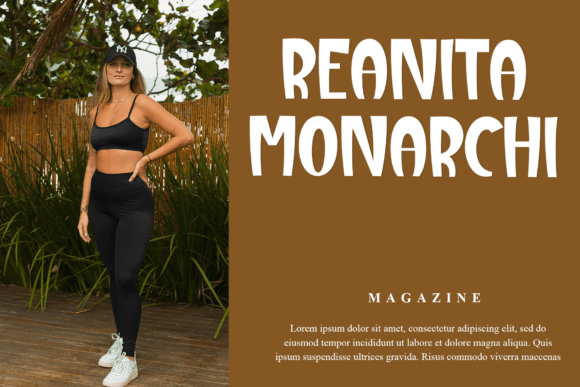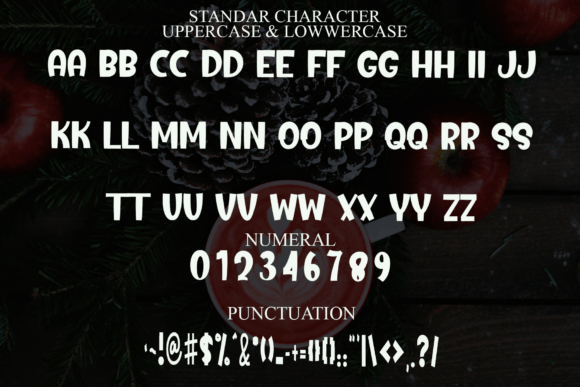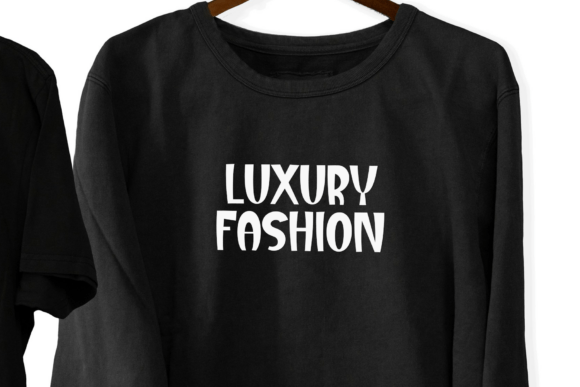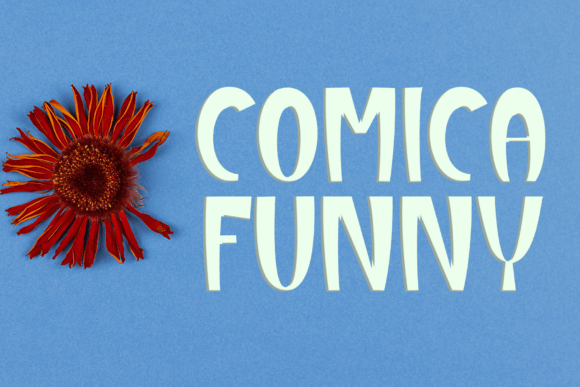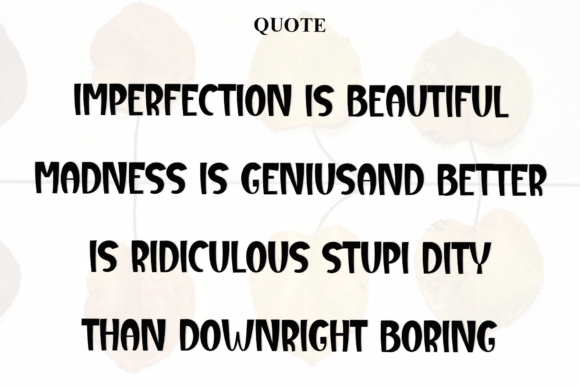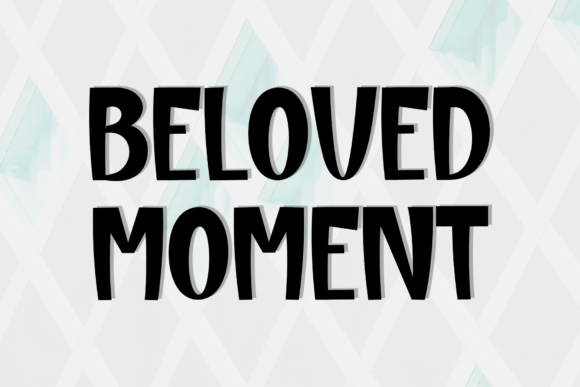
The Quest for the Perfect Font: Discovering February Notebook
I’ll never forget the time I was working on a project for a client who wanted a custom design that screamed “spring” but with a twist of uniqueness. I had spent hours scouring through font libraries, trying to find that one special font that would bring their vision to life. And then, I stumbled upon February Notebook. It was love at first sight! 💕 This beautiful, eye-catching font has a soft, unique touch that instantly captured my heart. In this article, I’m excited to share with you why February Notebook has become a staple in my design toolkit and how you can make the most of it in your creative projects.
A First Look at February Notebook
February Notebook is more than just a font; it’s an experience. Its distinctive strokes give it a special character, making it both meaningful and versatile for future use. Whether you’re working on design projects, crafts, or other creative works, this font is sure to enhance your designs and appeal to a wide range of audiences. With various characters at your disposal, the possibilities are endless!
So, what makes February Notebook stand out, and are there any quirks to be aware of? Let’s dive in! 🤔
- ✨ Unique and eye-catching design
- ✅ Soft and elegant feel
- 💡 Highly versatile for various creative projects
- ⚠️ Some characters might require manual adjustments for optimal spacing
- 🤔 Limited availability of certain special characters
The Story Behind February Notebook
February Notebook was designed with the intention of creating a font that captures the softness and uniqueness of handwritten notes. Inspired by the beauty of natural writing, the designer aimed to create a font that would be both versatile and meaningful. The result is a font that feels both personal and creative, perfect for a wide range of design projects.
| What makes February Notebook unique? | February Notebook stands out due to its distinctive strokes and soft, unique touch, making it perfect for designs that require a personal and creative feel. |
| Are there any OpenType features available in February Notebook? | Yes, February Notebook offers various OpenType features, glyphs, and stylistic alternates, allowing you to add more personality and creativity to your designs. |
In conclusion, February Notebook is a beautiful and versatile font that’s sure to elevate your designs. With its unique touch, compatibility across platforms, and extensive features, it’s an excellent addition to any creative project. So, go ahead and give February Notebook a try – I’m sure you’ll love it just as much as I do! 😊